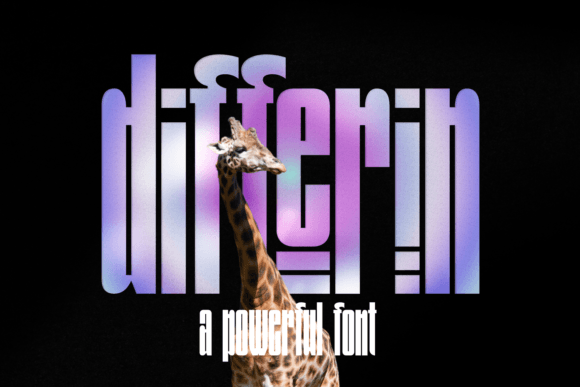
Differin Font: A Geometric Display Font Inspired by Miami Deco Art
In the world of typography, fonts play a crucial role in conveying messages, expressing emotions, and creating visual identities. Among the numerous fonts available, Differin Font stands out as a unique and stylish geometric display font that pays homage to the Miami Deco Art of the 80s while embracing the vibrant neon color gradients of the 90s.
What is Differin Font?
Differin Font is a tall, geometrically inspired display font designed to make a statement. Its sleek lines, geometric shapes, and elegant curves evoke the opulence and glamour of Miami Deco Art, a style that emerged in the 1980s. However, this font also seamlessly adapts to the bold and vibrant aesthetic of the 1990s, making it a versatile choice for various design projects.
Key Features of Differin Font
- Geometric Inspiration: Differin Font draws inspiration from geometric shapes, resulting in a clean and modern look that works well in a variety of contexts.
- PUA Encoding: This font is PUA (Private Use Area) encoded, which means that it includes a wide range of glyphs and swashes that can be easily accessed. This feature makes it ideal for designers who want to add a touch of elegance and sophistication to their work.
- Elegant and Versatile: Differin Font can be used in elegant contexts, such as luxury branding, high-end fashion, and upscale events, as well as in more playful and vibrant settings, like neon-lit advertisements and retro-style graphics.
Miami Deco Art Influence
Miami Deco Art, a style that emerged in the 1980s, is characterized by its use of bold geometric shapes, bright colors, and ornate details. This style was popularized in Miami Beach, where it was used in the design of hotels, restaurants, and other buildings. Differin Font captures the essence of this style, with its geometric shapes and elegant curves.
The font’s tall and slender design is reminiscent of the iconic Miami Beach hotels, with their sleek lines and ornate decorations. The geometric shapes and clean lines of Differin Font also evoke the sense of luxury and sophistication that defines Miami Deco Art.
Neon Color Gradients of the 90s
In addition to its Miami Deco Art inspiration, Differin Font also looks amazing with the neon color gradients of the 1990s. The font’s geometric shapes and clean lines make it a perfect match for the bold and vibrant colors of the 90s.
The neon color gradients of the 90s were a staple of the decade’s design aesthetic, used in everything from music videos to album covers. Differin Font’s ability to adapt to this style makes it a great choice for designers who want to create retro-style graphics or pay homage to the iconic designs of the 1990s.
Design Applications
Differin Font’s versatility and elegance make it suitable for a wide range of design applications, including:
- Logo Design: The font’s geometric shapes and elegant curves make it a great choice for logo design, particularly for luxury brands or high-end fashion companies.
- Advertising: Differin Font’s ability to adapt to bold and vibrant colors makes it a great choice for advertising, particularly for retro-style graphics or neon-lit advertisements.
- Packaging Design: The font’s elegant and sophisticated design makes it suitable for packaging design, particularly for high-end products or luxury brands.
- Web Design: Differin Font’s clean lines and geometric shapes make it a great choice for web design, particularly for headers, titles, and other display text.
Differin Font is a unique and stylish geometric display font that pays homage to the Miami Deco Art of the 80s while embracing the vibrant neon color gradients of the 90s. Its PUA encoding and wide range of glyphs and swashes make it a versatile choice for designers who want to add a touch of elegance and sophistication to their work.
Whether used in logo design, advertising, packaging design, or web design, Differin Font is sure to make a statement. Its geometric shapes, clean lines, and elegant curves make it a great choice for designers who want to create visually stunning and effective designs.
Technical Specifications
- Font Type: Geometric display font
- Encoding: PUA (Private Use Area)
- Glyphs and Swashes: Wide range of glyphs and swashes available
- Design Inspiration: Miami Deco Art of the 80s and neon color gradients of the 90s
- What is Differin Font?: Differin Font is a geometric display font inspired by Miami Deco Art and neon color gradients.
- What is PUA encoding?: PUA encoding is a type of encoding that allows for a wide range of glyphs and swashes to be accessed.
- What design applications is Differin Font suitable for?: Differin Font is suitable for logo design, advertising, packaging design, web design, and other applications where a elegant and sophisticated font is needed.